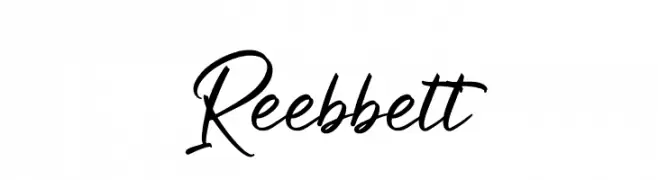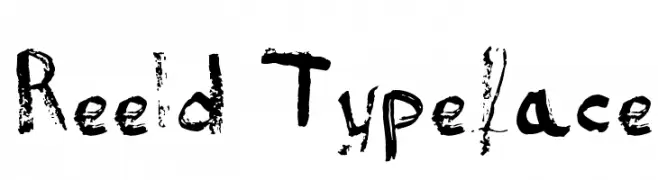
A bold, distressed font with a vintage, rugged appearance.
A bold, vintage-style font with strong serifs and geometric shapes.
A bold, vintage-style font with strong serifs and a decorative flair.
A dynamic, cursive handwritten font with bold, flowing strokes.
An ornate and decorative font with intricate swirling patterns.
A distressed, grunge typeface with a hand-drawn, vintage aesthetic.
A casual, handwritten font with a natural, fluid style.
A decorative rope-themed font with a nautical and playful style.